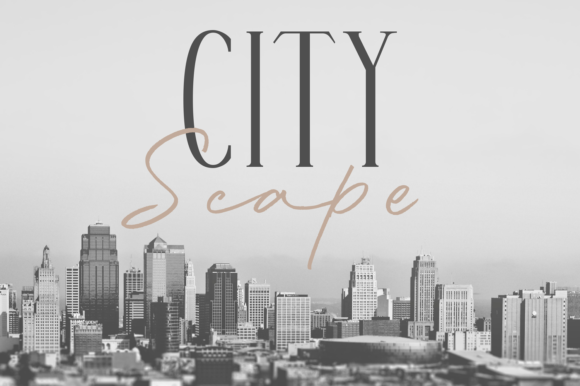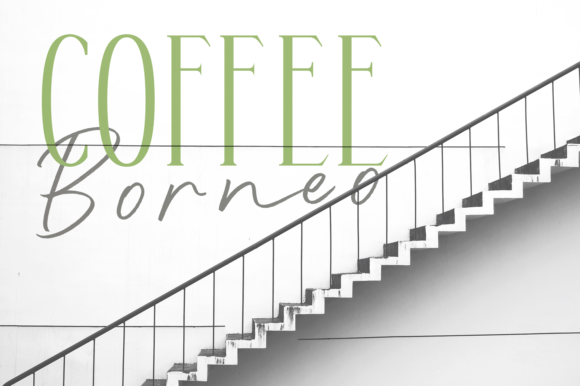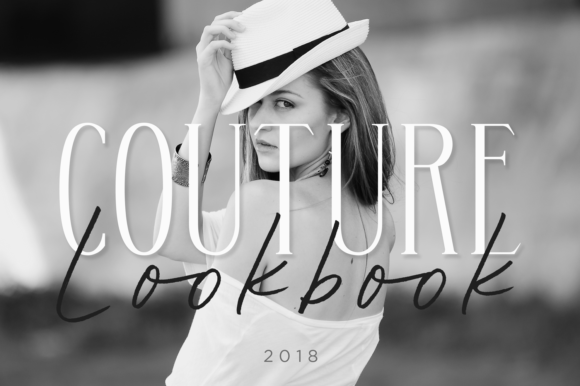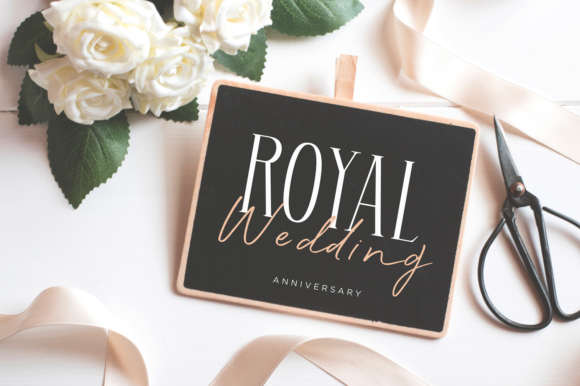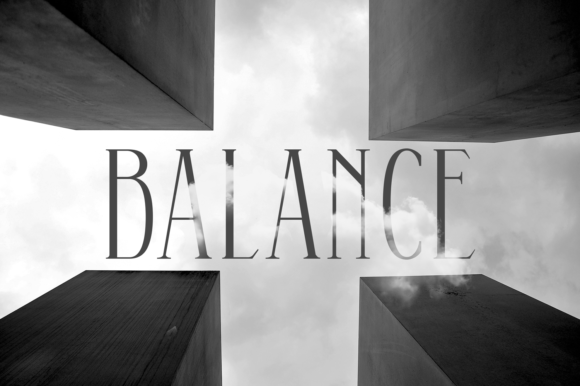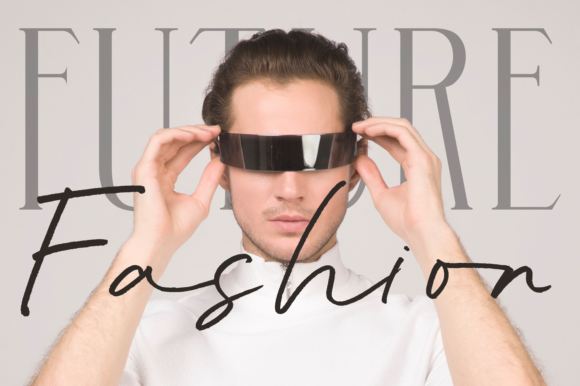
The Font that Stole My Heart: A Deep Dive into Double Aunofa
I still remember the design project that led me to Double Aunofa. I was working on a branding project for a small business, and I was struggling to find the perfect font that would convey their friendly and approachable tone. That’s when I stumbled upon Double Aunofa, a stunning duo font that includes both a script and serif style. It was love at first sight! 💕
An Honest Review of Double Aunofa
- ✨ The perfect blend of elegance and friendliness: Double Aunofa’s script and serif styles work beautifully together, but they’re also gorgeous on their own.
- ✅ Highly versatile: This font duo is suitable for a wide range of projects, from branding and advertising to crafting and DIY tutorials.
- 💫 Beautifully crafted: The attention to detail in Double Aunofa is impressive, with intricate letterforms and subtle nuances that make it stand out.
While Double Aunofa is an amazing font, there are a few things to keep in mind: 🤔
- ⚠️ Limited use of all-caps: While the serif style looks great in all-caps, the script style can be a bit tricky to read in all-caps. Use it sparingly for emphasis.
- ⚠️ Some glyphs may require manual adjustment: Depending on your design software, you may need to manually adjust some glyphs to get the perfect look.
The Backstory of Double Aunofa
Double Aunofa was designed by a team of typographers who wanted to create a font that would be both elegant and approachable. Inspired by traditional letterforms and modern design trends, they crafted a duo font that would be perfect for branding, advertising, and creative projects. 📚
A: Double Aunofa is perfect for branding projects that require a friendly and approachable tone. Use the script style for headings and the serif style for body text to create a beautiful and cohesive look.
Q: Is Double Aunofa suitable for body text?
A: While Double Aunofa is beautiful for headings and titles, it may not be the best choice for body text. The serif style is more legible, but it’s still a display font at heart. Use it sparingly for short paragraphs or captions.